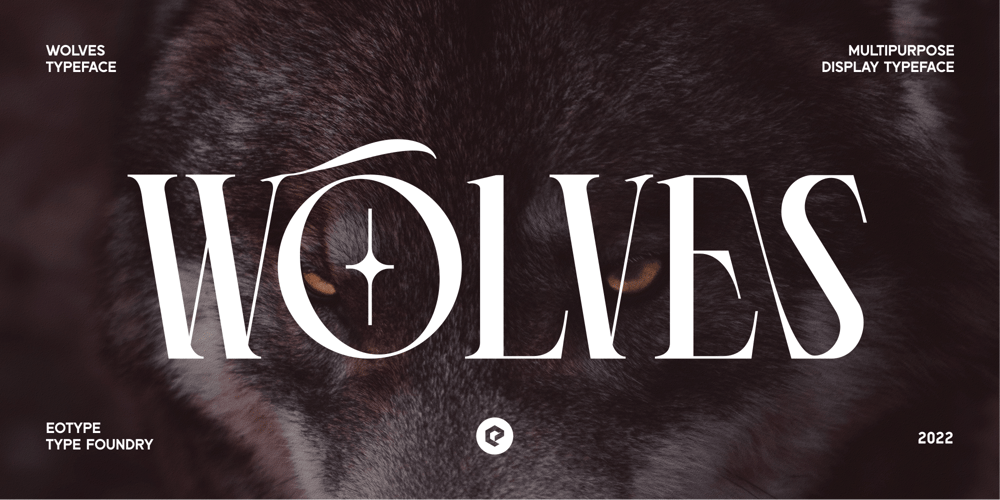
Wolves
Wolves font
Wolves Font Family was designed by Fajar Ramadan and published by Eotype. Wolves contains 1 styles and family package options. The Wolves font is a serif condense font with a sleek and elegant appearance. This font is created as a unique professional multipurpose font that you can use in your projects. You can use it in modern and fancy designs. This font is perfect for a variety of projects, such as branding, poster displays, logo designs, magazine covers, product labels, clothing and more. This font contain ligatures and alternative styles. This font provides a great experience!